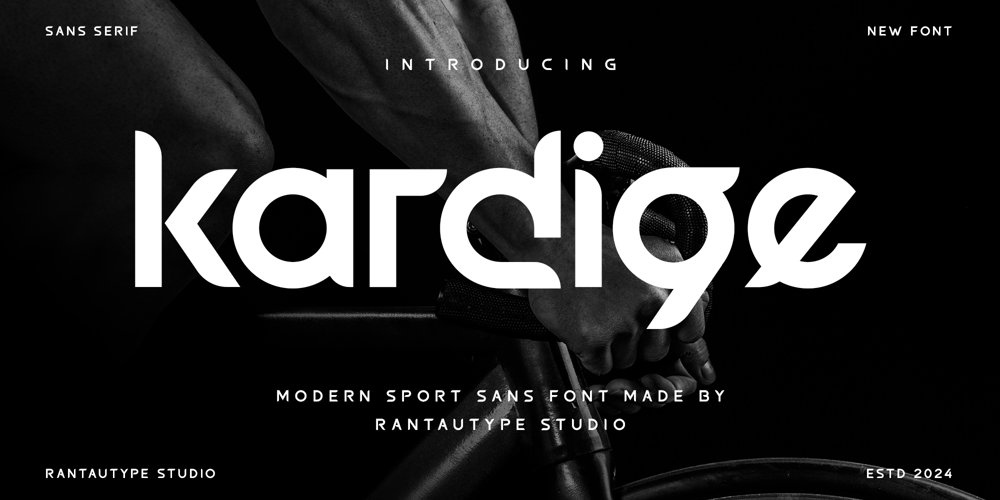
Kardige Font Family was designed by Yudi Pratama Chandra and published by RantauType. Kardige contains 1 styles and family package options. Kardige is modern sport sans serif font insprire by modern atletica visual design. Kardige bring clean interpretation of sport with unique shape make your design project more stand out!. We keep this font look modern, minimalist, sporty and elegant.Kardige is a perfectly choice for any creative endeavor, chic, lifestyle design such as logotype, advertisements, watermark on photography, stationery, branding project, display and magazine, invitation, corporate brand, product design, label, business project and many other project with modern touch.What you have: Standart Glyphs Numberial and Functional Alternate and Ligature Works on PC & Mac Simple installations Accessible in Adobe Illustrator, Adobe Photoshop, Adobe InDesign, even work on Microsoft Word. Fonts include Multilingual Character for: Afrikaans, Albanian, Asu, Basque, Bemba, Bena, Breton, Chiga, Cornish, Dutch, English, Estonian, Filipino, Finnish, Friulian, Galician, Gusii, Indonesian, Irish, Italian, Kabuverdianu, Kalenjin, Kinyarwanda, Luo, Luxembourgish, Luyia, Machame, Makhuwa-Meetto, Makonde, Malagasy, Manx, Morisyen, North, Ndebele, Nyankole, Oromo, Portuguese, Quechua, Romansh, Rombo, Rundi, Rwa, Samburu, Sango, Sangu, Scottish, Gaelic, Sena, Shambala, Shona, Soga, Somali, Spanish, Swahili, Swedish, Swiss, German.Thank you for your purchase!Hope you enjoy with our font!